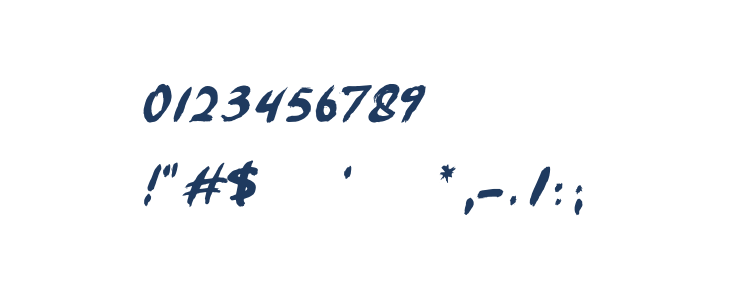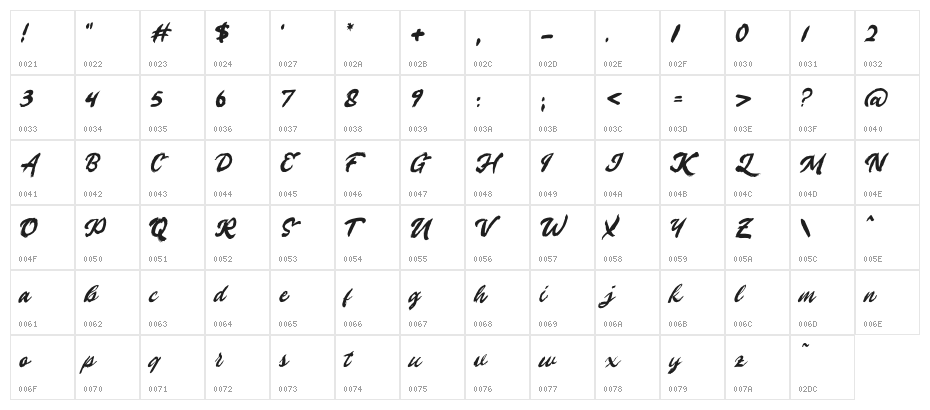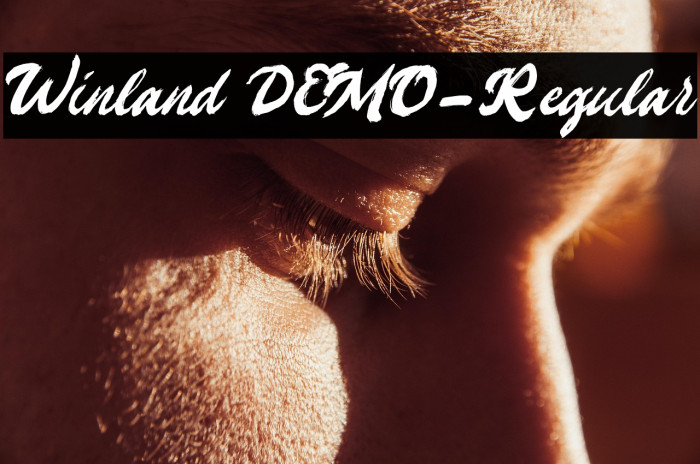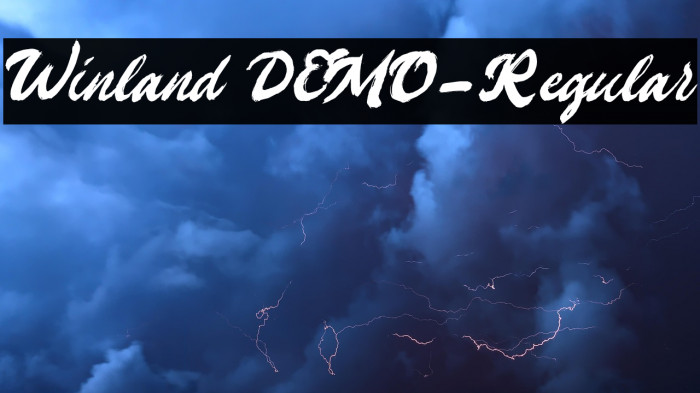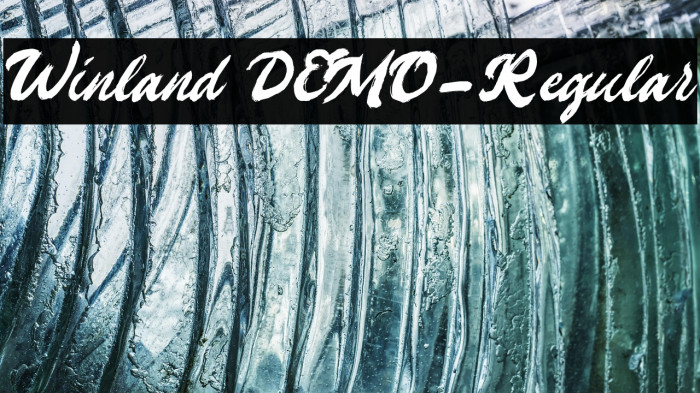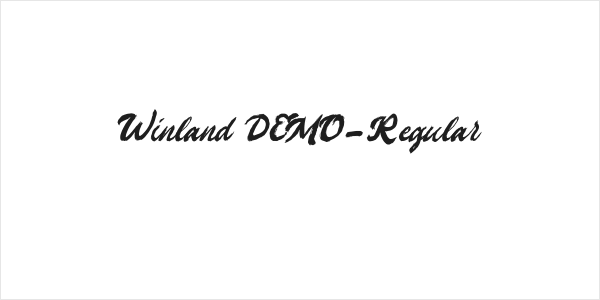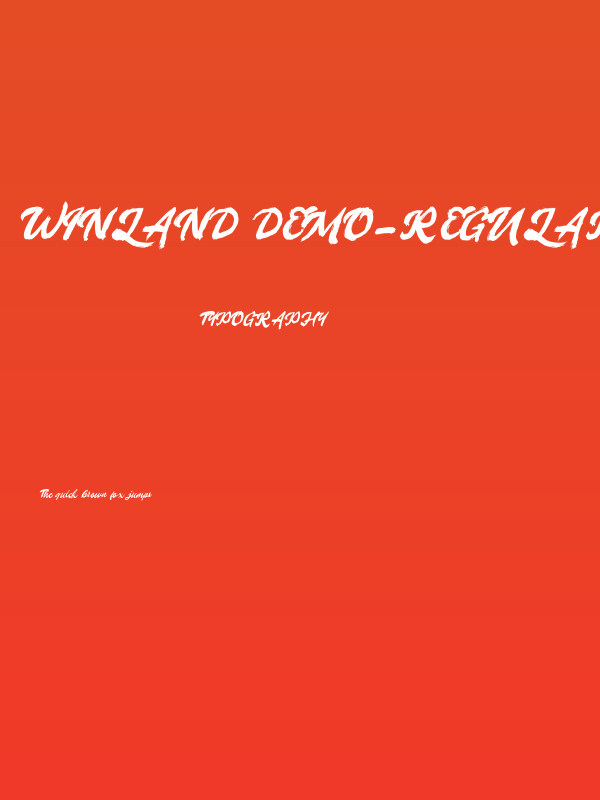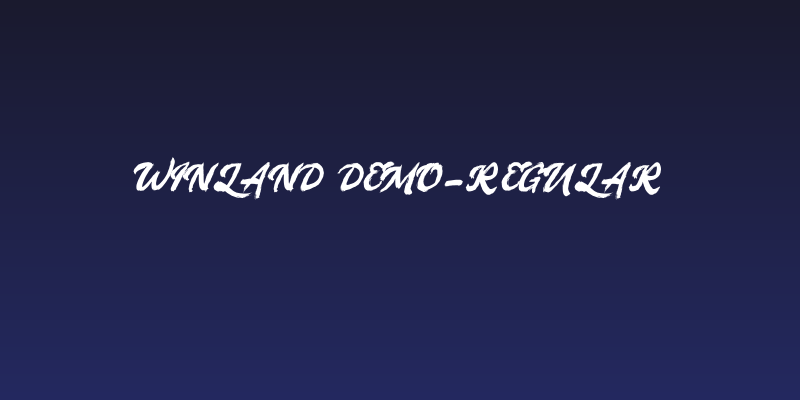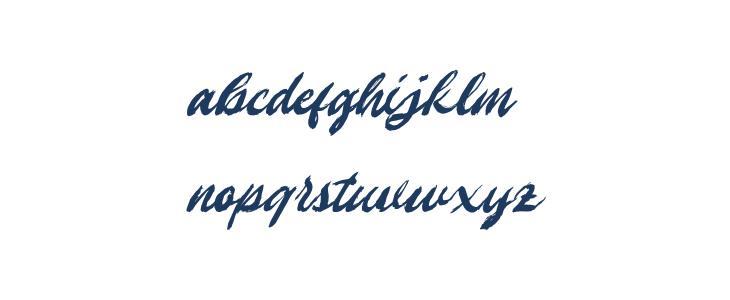
Winland DEMO-Regular Font
Winland DEMO-Regular Description
This font features a bold and expressive brush script style, characterized by its dynamic and fluid strokes. The letters have a hand-painted appearance, with varying thickness that adds a sense of movement and energy. The uppercase letters are particularly striking, with sweeping curves and dramatic flourishes. The lowercase letters maintain a consistent flow, complementing the uppercase with their elegant and slightly slanted form. Numbers and special characters are crafted with the same attention to detail, ensuring a cohesive look throughout. This font exudes a sense of creativity and artistic flair, making it ideal for projects that require a personal and impactful touch.